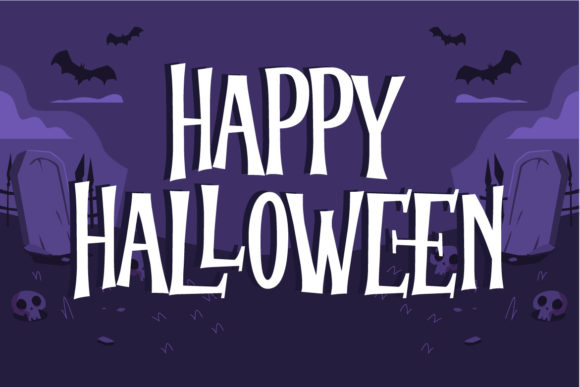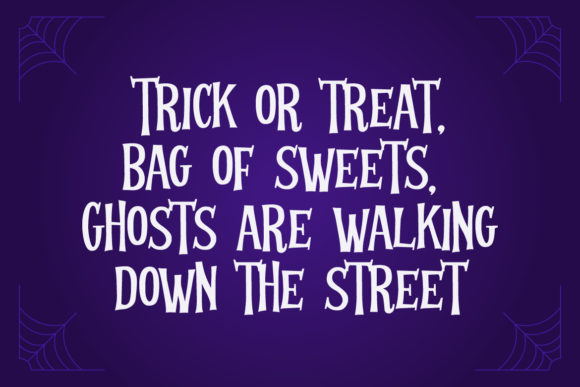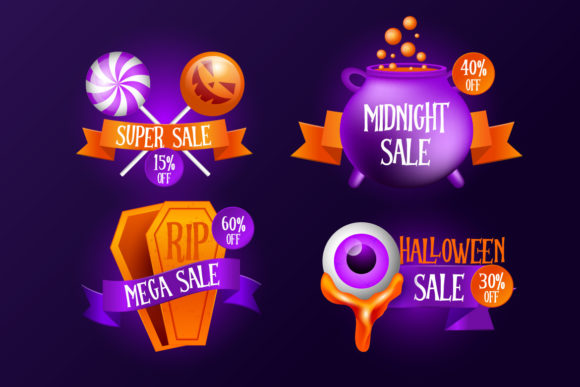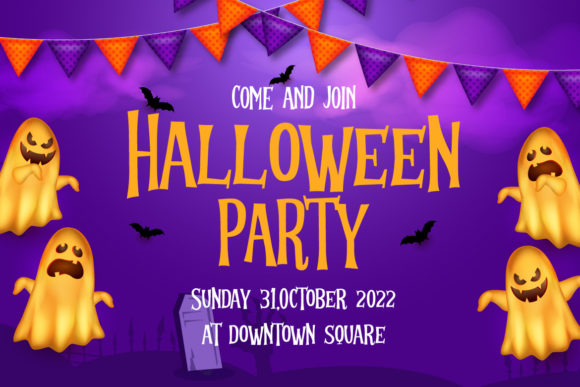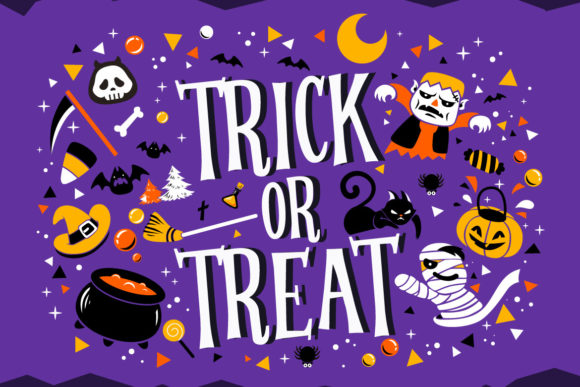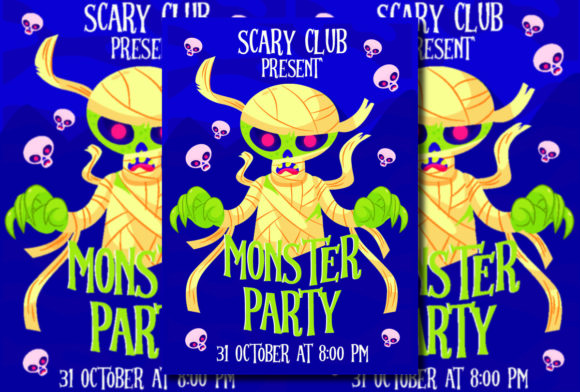
Unleash the Spook: Elevate Your Halloween Creations with Ghost Walking Font
As the witching hour approaches, designers and crafters are on the lookout for the perfect typography to add a spine-tingling touch to their Halloween-themed projects. Look no further than the Ghost Walking Font, a chilling display font that celebrates all things scary and spooky. With its eerie elegance, this font is sure to cast a spell on your audience and leave them screaming for more.
The Perfect Font for Spooky Season
Ghost Walking Font is the ideal choice for any Halloween-themed creative project. Whether you’re designing invitations, decorations, or social media graphics, this font is sure to add a haunting touch that will leave your audience shivering with delight. From creepy crawlies to ghostly apparitions, this font is the perfect way to bring your spooky visions to life.
Endless Possibilities
The only limit to using Ghost Walking Font is your imagination! With its versatile design, you can use it to create a wide range of spooky and kooky projects, such as:
- Halloween party invitations and decorations
- Spooky social media graphics and posts
- Eerie event branding and signage
- Creepy crafts and DIY projects
- Haunting holiday cards and gift tags
What Makes Ghost Walking Font So Special?
Ghost Walking Font is a unique and eye-catching display font that’s specifically designed to add a touch of spookiness to your projects. Here are just a few features that make it stand out:
- Eerie Elegance: Ghost Walking Font has a sophisticated, elegant design that’s perfect for adding a touch of spookiness to your projects.
- Highly Versatile: This font is perfect for a wide range of spooky and kooky projects, from invitations and decorations to social media graphics and crafts.
Tips for Using Ghost Walking Font
Here are a few tips for getting the most out of Ghost Walking Font:
- Experiment with Different Sizes: Try using Ghost Walking Font in different sizes to create a range of spooky effects, from subtle and eerie to bold and eye-catching.
- Pair with Other Fonts: Combine Ghost Walking Font with other fonts to create a unique and eye-catching look that’s all your own.
- Add Some Spooky Effects: Use Ghost Walking Font in combination with spooky effects, such as glow-in-the-dark ink or eerie images, to create a truly unforgettable project.
Get Ready to Cast a Spell
Ghost Walking Font is the perfect choice for designers and crafters looking to add a touch of spookiness to their Halloween-themed projects. With its eerie elegance, versatility, and ease of use, this font is sure to be a hit with anyone looking to create spooky and kooky projects. So why wait? Download Ghost Walking Font today and start creating your own spooky masterpieces!